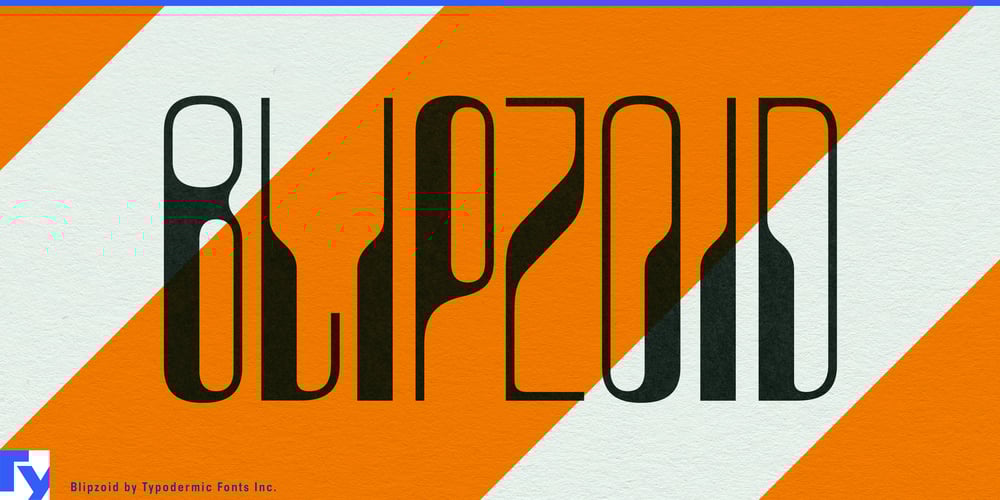
Blipzoid Font Family was designed by Ray Larabie and published by Typodermic. Blipzoid contains 1 styles and family package options. Step into the avant-garde world of Blipzoid—a typeface that catwalks effortlessly between the opulent glamour of art deco and the audacious allure of 1960s sci-fi. This compact display font is a sartorial statement in letterform, weaving together sleek geometric shapes and magnetic ink-inspired characters with the finesse of a master couturier.Imagine a typeface that could grace both the pages of Vogue and the cover of a pulp sci-fi novel. Blipzoid is that typographic paradox—a font that’s equally at home in the ateliers of Paris as it is in the imagined metropolises of distant planets. Its distinct letterforms adapt seamlessly to your creative vision, whether you’re crafting an otherworldly editorial spread or designing the next iconic fashion logo.Blipzoid doesn’t just communicate; it transports. It’s the typographic equivalent of a Courrèges space-age minidress or a Paco Rabanne metallic shift—boldly futuristic yet undeniably chic. Each character is a carefully crafted piece, ready to elevate your designs from the mundane to the extraordinary. This linguistic trendsetter speaks fluently across most Latin-based European writing systems, from the fashionable boulevards of Milan to the cutting-edge design studios of Stockholm. Blipzoid ensures your message resonates with cosmopolitan flair, whether you’re launching a global fashion campaign or branding a retro-futuristic nightclub.Choose Blipzoid when you want your designs to turn heads and spark imagination. It’s more than a font—it’s a fashion statement, a time machine, and a ticket to uncharted galaxies. Let Blipzoid be the couture piece in your typographic wardrobe, ready to make your next project the talk of this world and beyond.